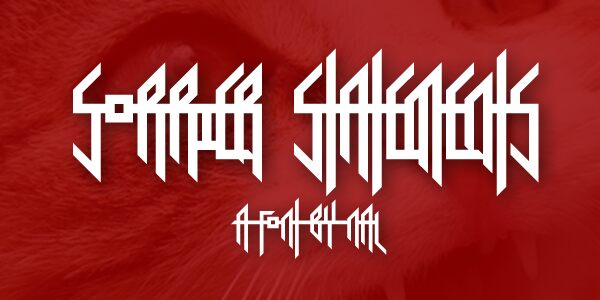
Sorrier Statements by NAL of FontStruct is a free futuristic display font with severe angles and an unusually tall, compressed silhouette. Long vertical strokes, sharp diagonal cuts, and interlocking bars make the letters resemble a coded architectural system, with occasional square details interrupting the dense structure.
Designers working in electronic music, experimental fashion, or science fiction entertainment can use it for posters, album artwork, game graphics, and merchandise. Its strongest uses share an interest in cryptic technology, where the lettering can function as part of an interface or emblem rather than ordinary text.